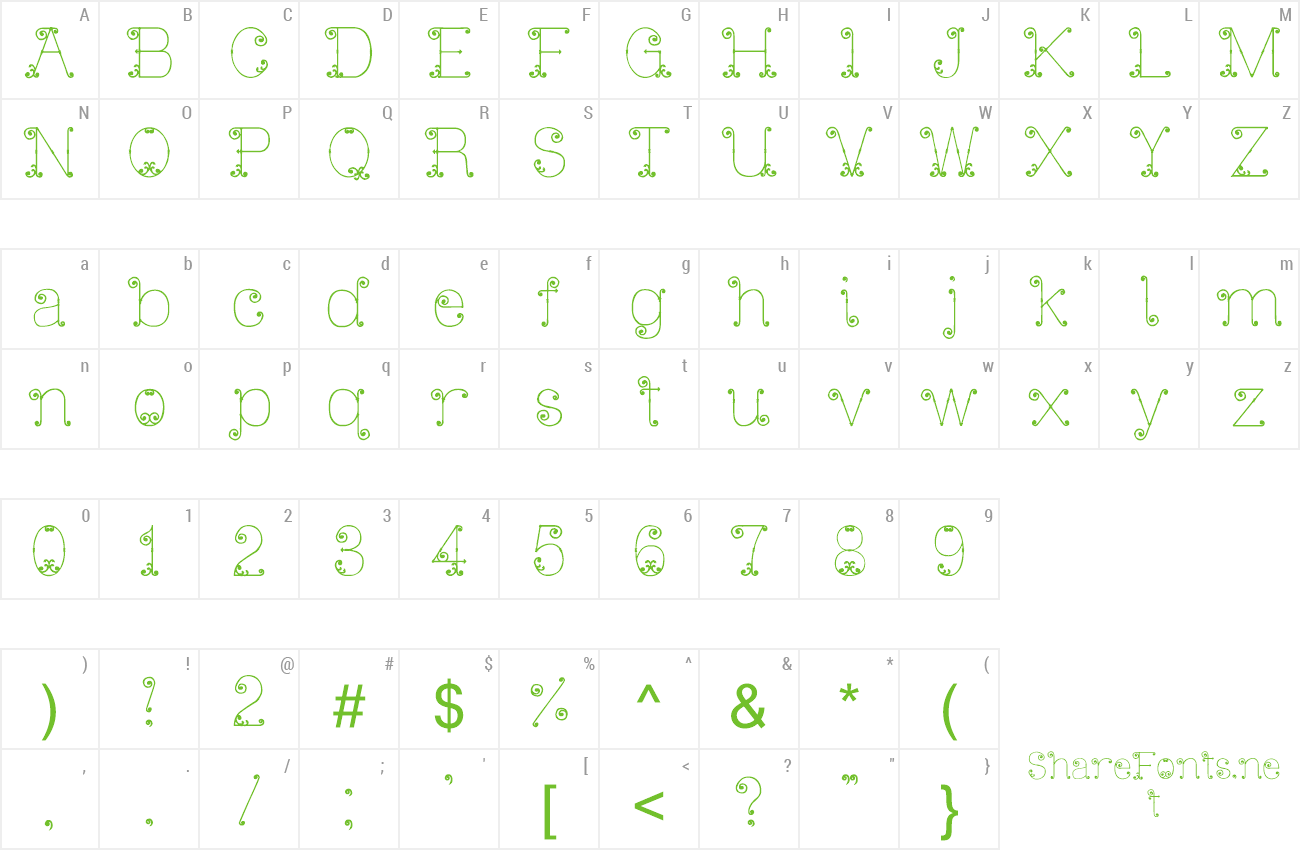
Iron Gate Font
Iron Gate Font - Web wrought iron fonts look like the fences, gates, and railings that are made with iron.
Web wrought iron fonts look like the fences, gates, and railings that are made with iron.